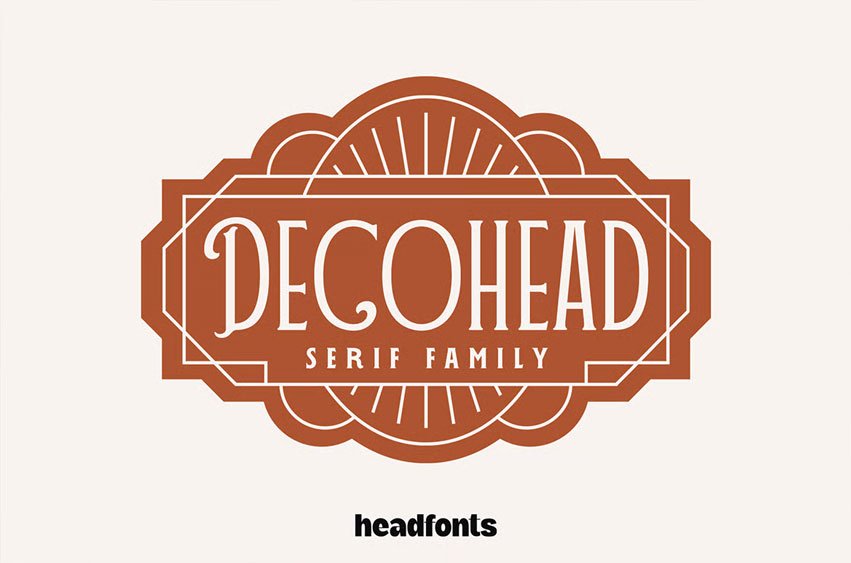
Decohead Font Serif, an elegant typeface inspired by Art Deco design. This font brings a refined, sophisticated touch to any project with its unique and delicate details. Decohead combines a modern, clean look with subtle decorative accents, resulting in an exquisite overall style.
Available in three weights, it includes uppercase and small caps, along with standard Latin script support, numerals, and alternate characters. Perfect for projects that call for a glamorous, decorative flair, Decohead adds timeless elegance to your designs.